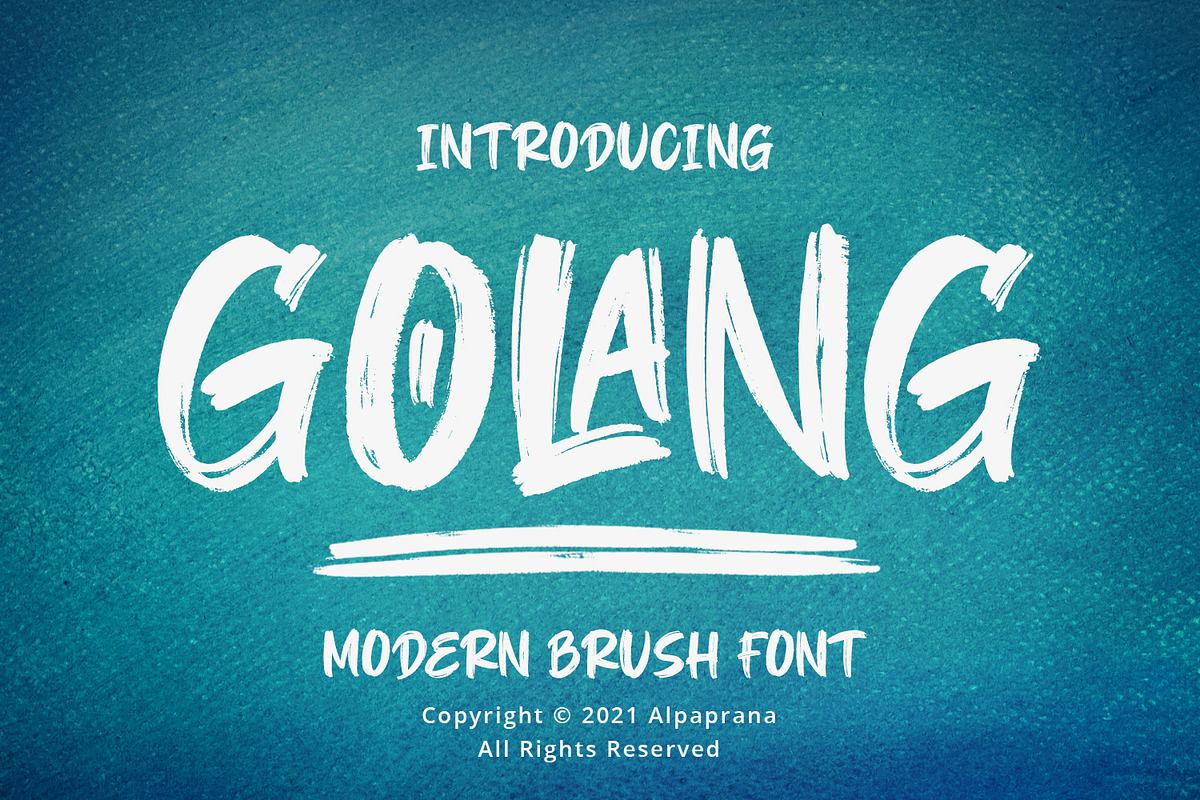
Golang – Modern Brush Font Free Download is a contemporary brush script typeface that combines the artistic, hand-drawn texture of a brushstroke with a clean, modern style. Perfect for headlines, logos, branding, posters, social media posts, and more, this font brings a dynamic and expressive feel to your designs.
With its bold brush-style strokes and fluid movement, Golang – Modern Brush Font Free Download adds personality and character to any project, while maintaining readability and contemporary flair.